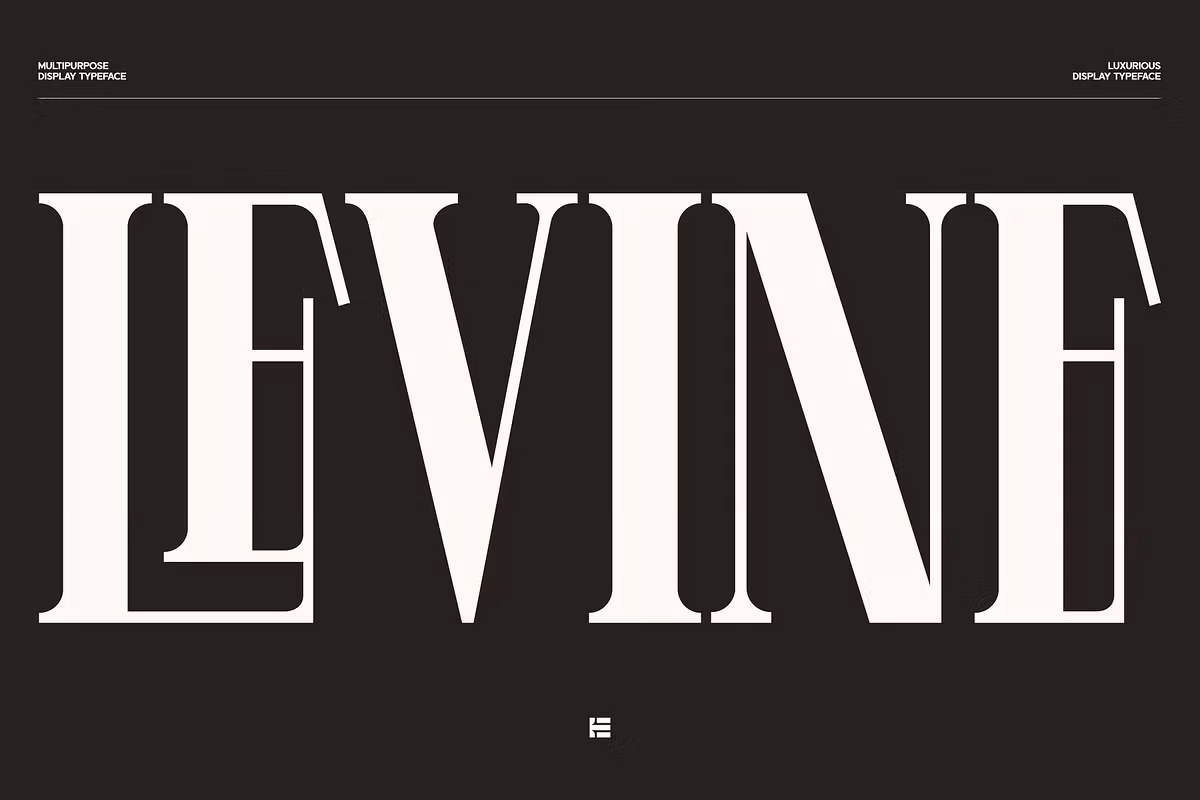
Please note, you must purchase this font for commercial use. However, you can easily download Levine Font Free Download for testing purposes and personal projects. Levine Font offers an elegant and modern typography style suitable for a variety of design projects including branding, logos, invitations, wedding stationery, and posters. Its distinctive look provides clarity and uniqueness, enhancing your visual communication effectively. Designers and creators looking for a stylish yet versatile typeface can confidently opt for Levine Font Free Download to explore its potential. This font features well-balanced letters and consistent kerning, ensuring readability across digital platforms and printed materials alike. Levine Font's popularity is growing steadily due to its ability to convey professionalism and creativity simultaneously, making it an excellent choice for graphic artists, marketers, and business owners. Don't miss the opportunity to enrich your design toolkit—get Levine Font Free Download now and experiment freely before deciding on a commercial license.